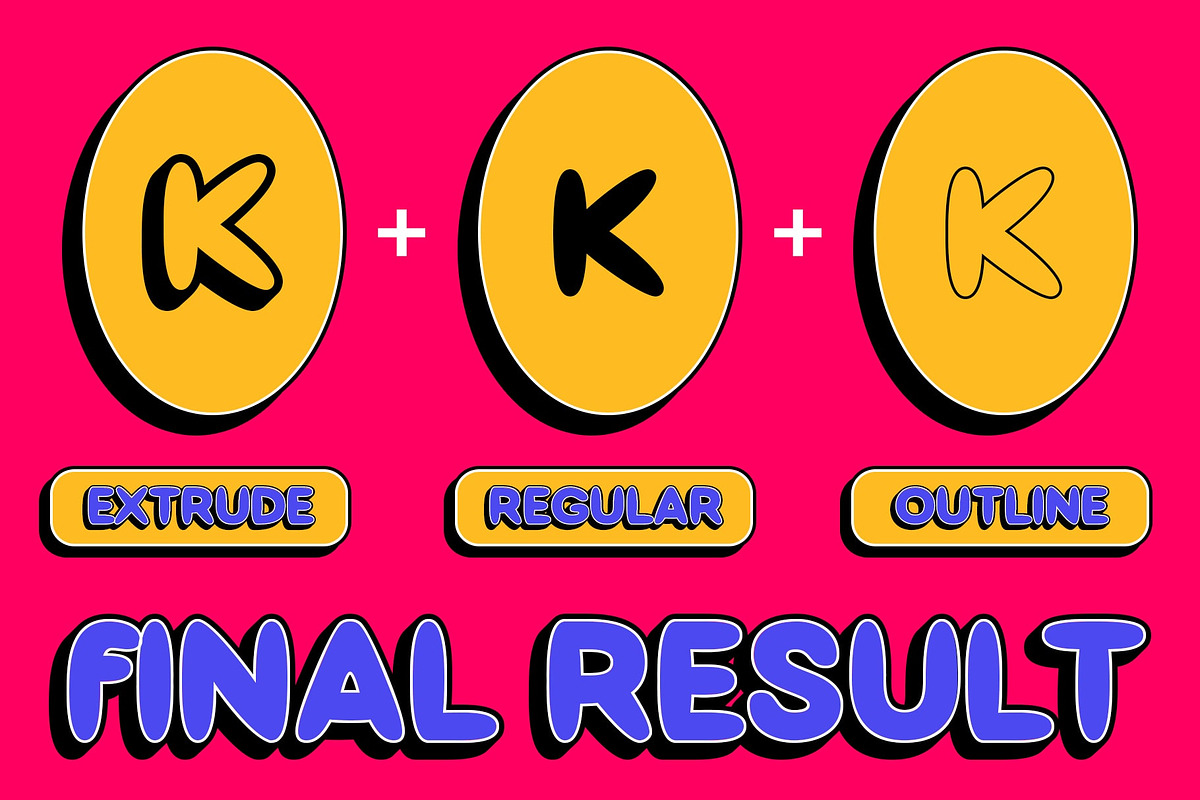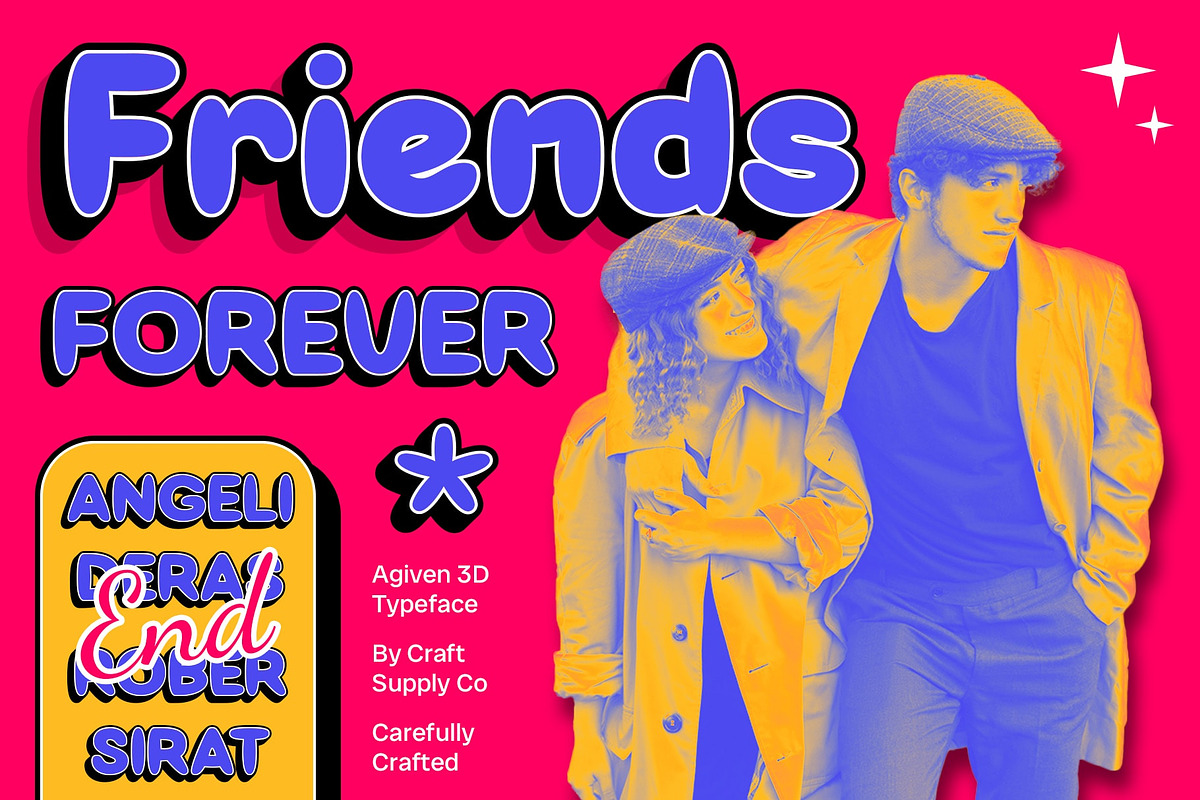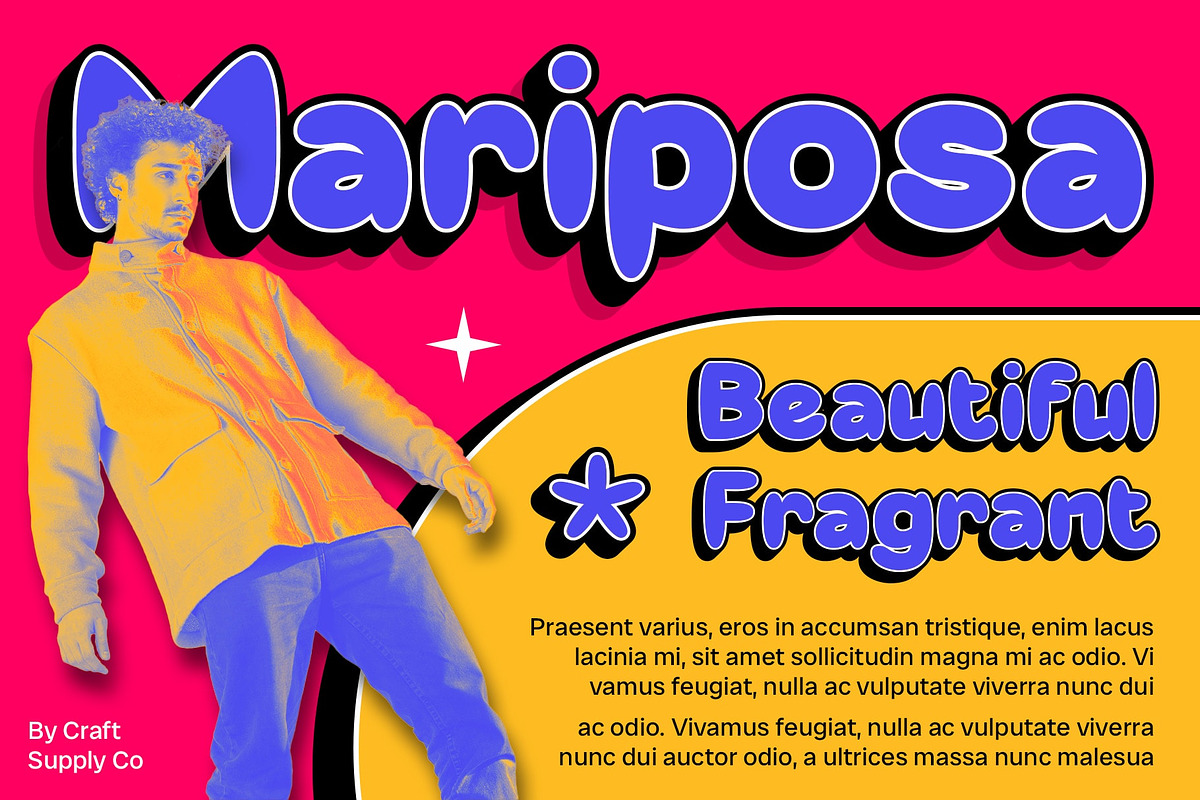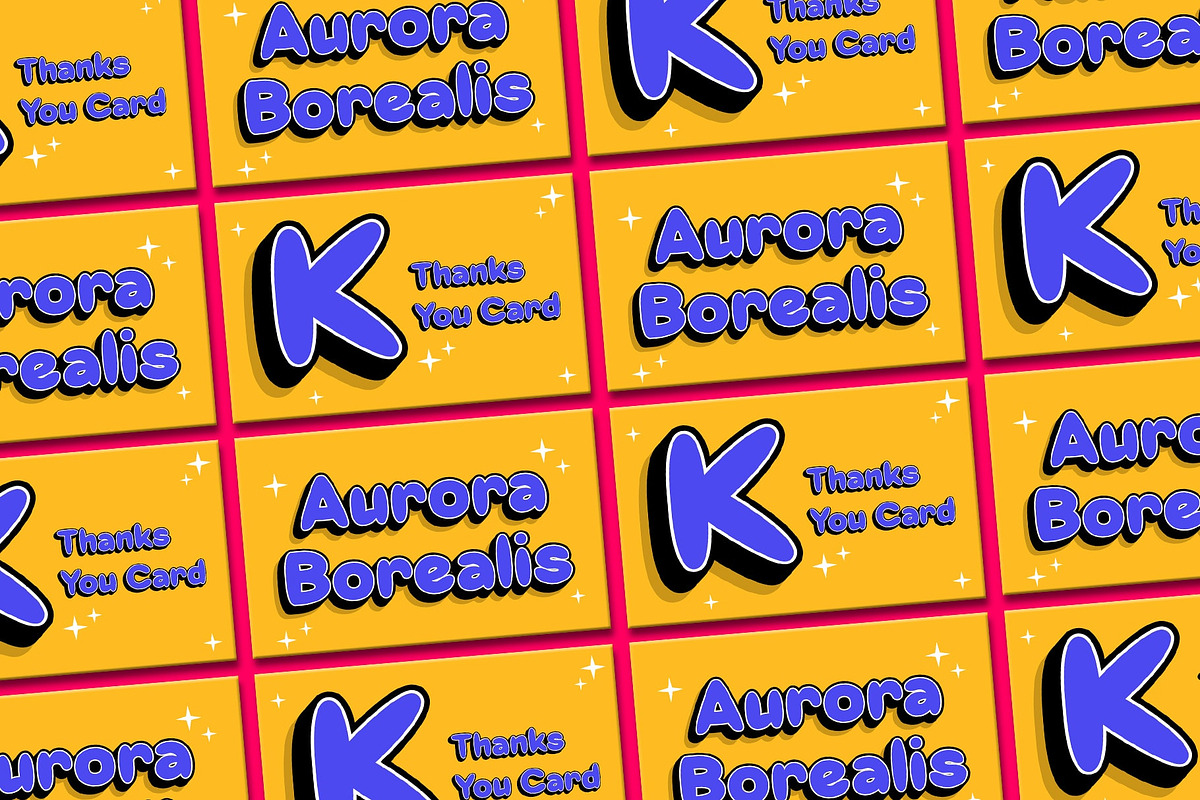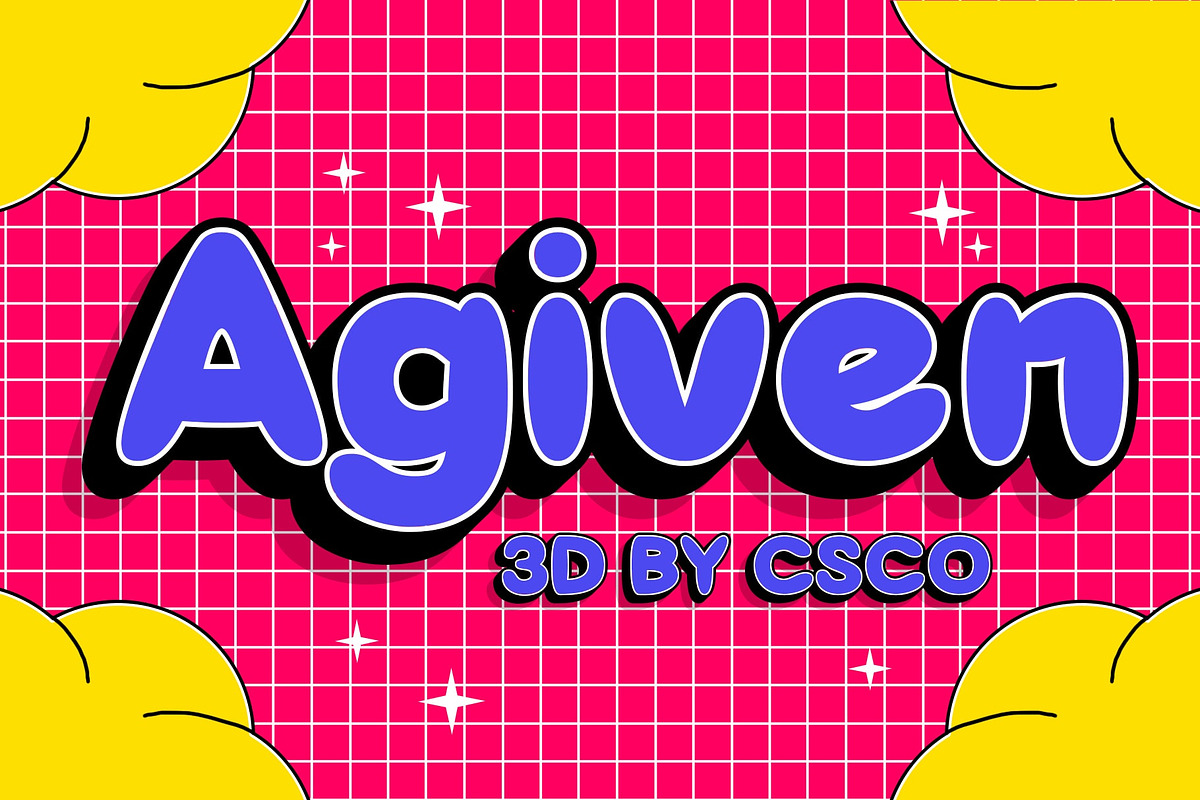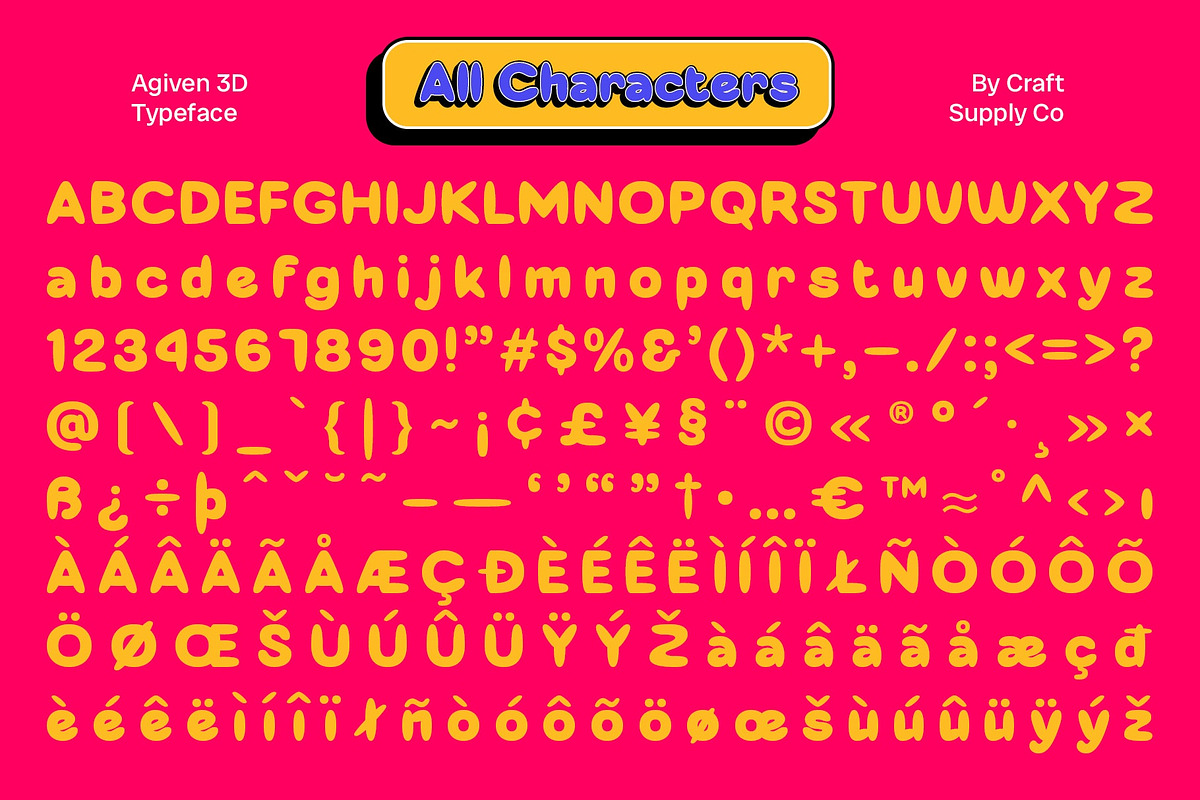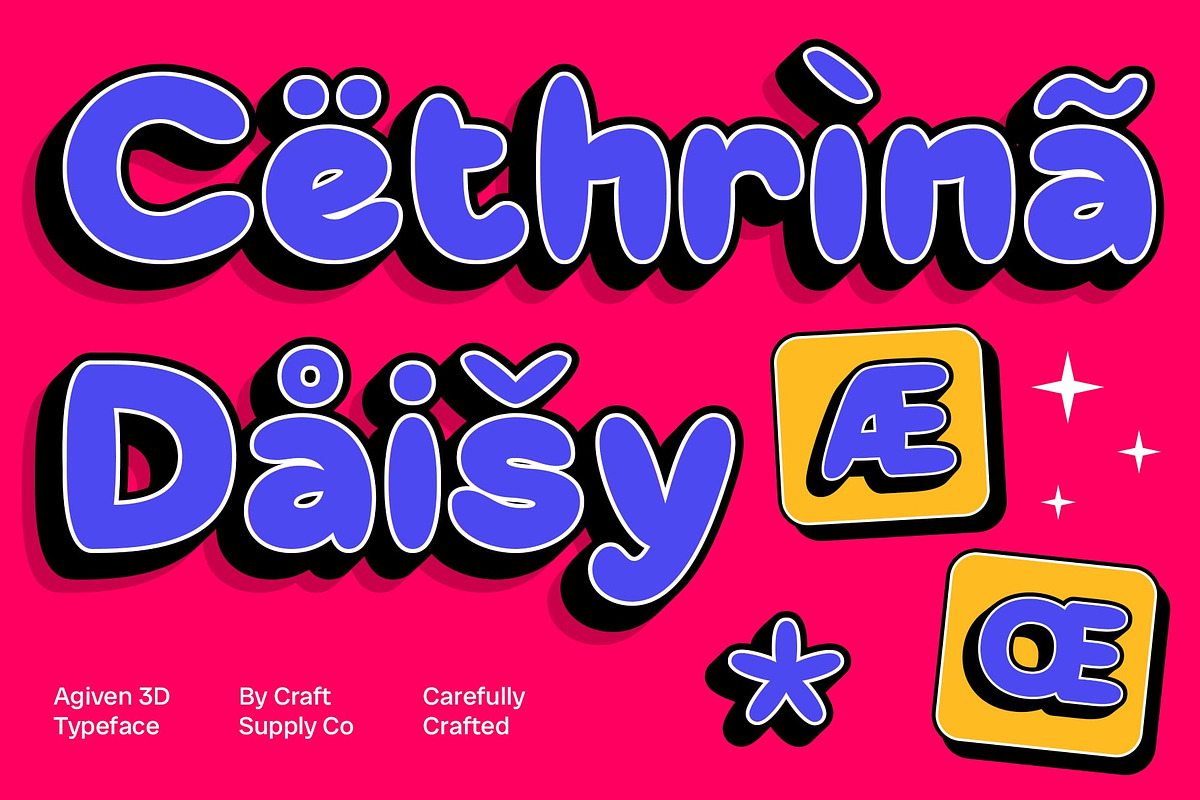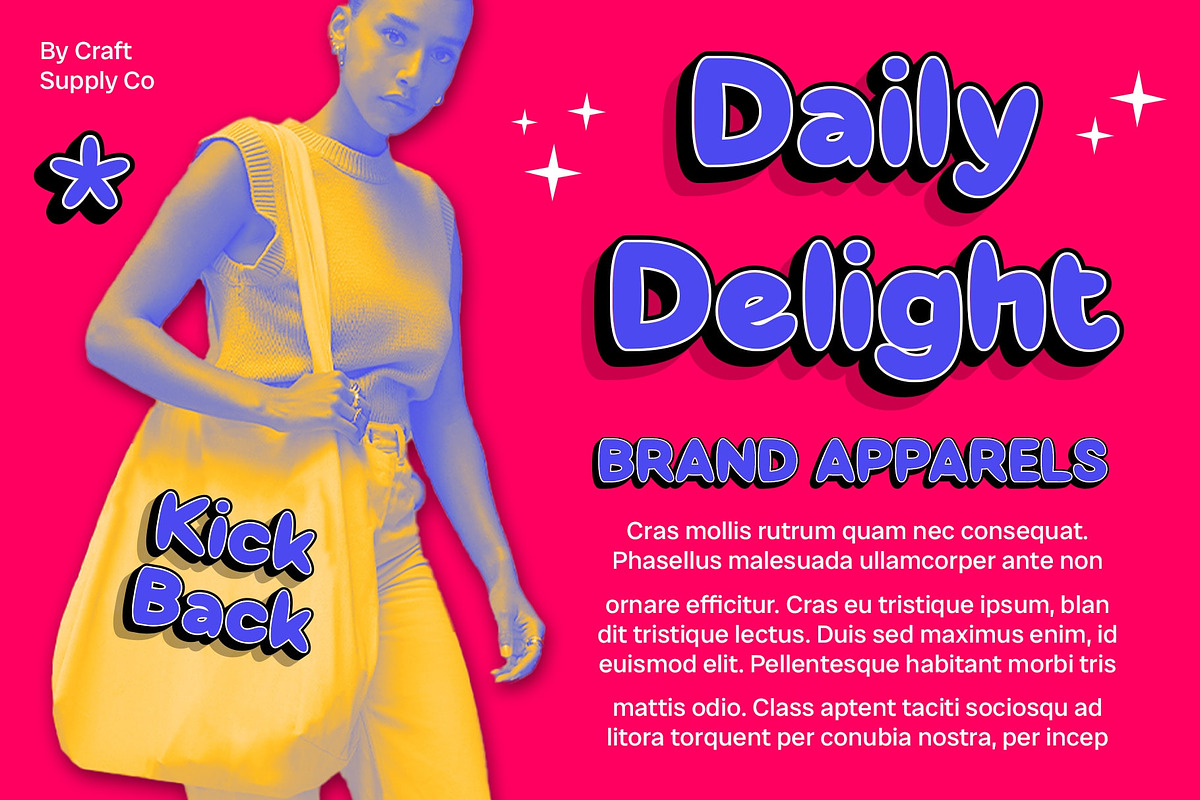
Agiven 3D
Agiven 3D: Where Funk Meets Fun
Bubble Funk 3D Display
Agiven 3D is a font with bubble shapes for a cute and funky look, and a 3D style perfect for unique designs. Its playful appearance and three-dimensional elements create a lively and dynamic look, ideal for posters, branding, and other projects that require a touch of fun and creativity.
Bubble Shapes for a Cute and Funky Look
With its bubbly design and playful shapes, Agiven 3D offers a fresh take on display fonts. The bubble shapes create a charming and whimsical look, perfect for designs that demand attention and convey a sense of fun and joy.
Perfect for Unique Designs
Whether you’re designing a quirky product packaging or creating a fun event poster, Agiven 3D is sure to make an impression. Its bubble shapes and 3D style make it perfect for designs that need a touch of whimsy and creativity.
Versatile and Easy to Use
Despite its distinctive appearance, Agiven 3D is versatile and easy to use. The font works well in both large and small sizes, making it suitable for a variety of applications, from headlines and banners to body text and more. With its blend of bubble shapes and 3D style, Agiven 3D adds a unique and playful element to any design.
- Agiven Regular
- Agiven Outline
- Agiven Extrude Right
- Agiven Extrude Left